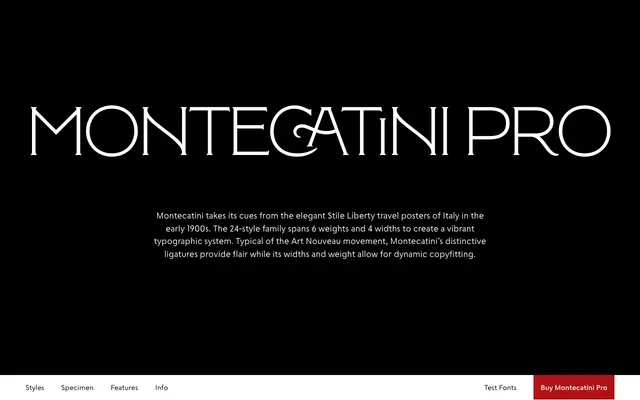
Montecatini Pro
Tipofili · Louise Fili, Andy Anzollitto, Nick Misani · 2017
A 24-style display family drawn from Italian Stile Liberty travel poster lettering of the early 1900s, with four widths, six weights and characteristic Art Nouveau ligatures.
Designed by Louise Fili, Andy Anzollitto and Nick Misani and released in 2017 with an expanded edition in 2019, the family spans four widths from Stretto to Largo across six weights from Light to Ultra. Distinctive ligatures are programmed as contextual alternates, pairing automatically as you type, and the font adds swashes, ornaments, stylistic sets and fraction support for full period-appropriate display work.
Montecatini is a display typeface drawing on Italian Stile Liberty (Art Nouveau) travel poster lettering, with decorative ligatures, swashes and ornaments that place it firmly in the display/decorative category.